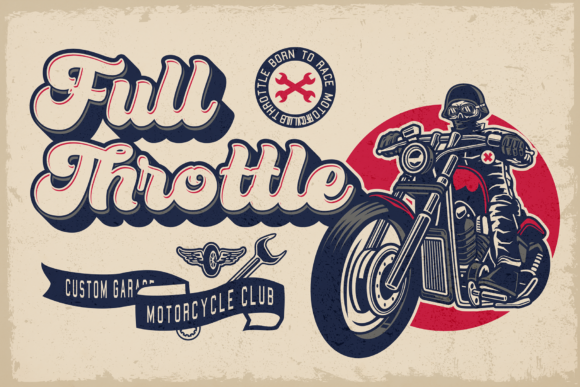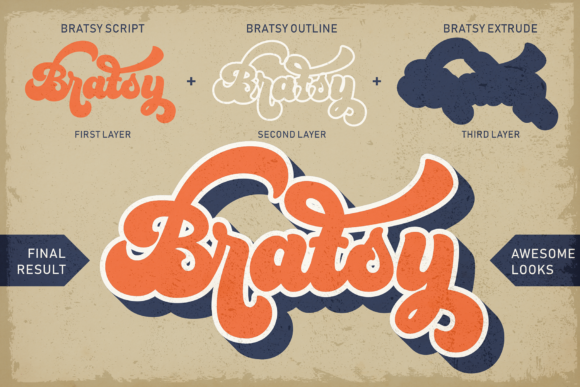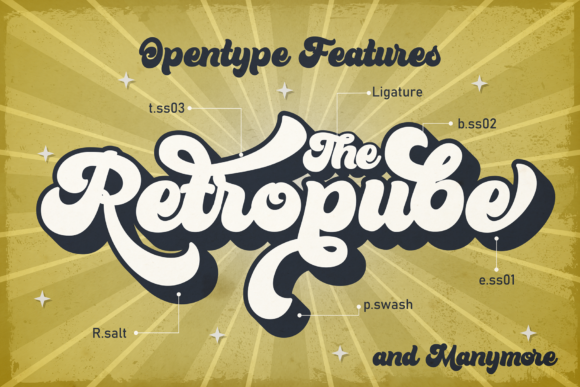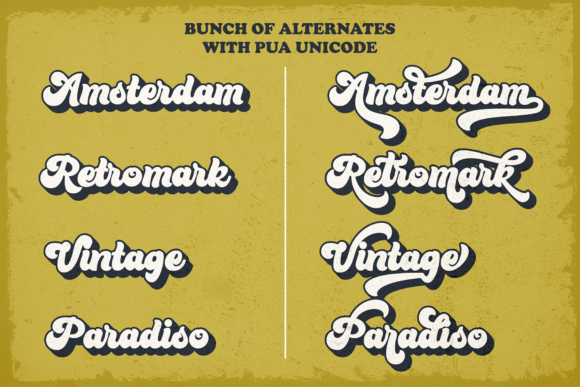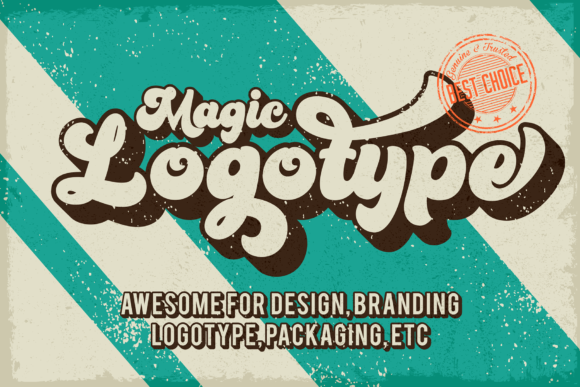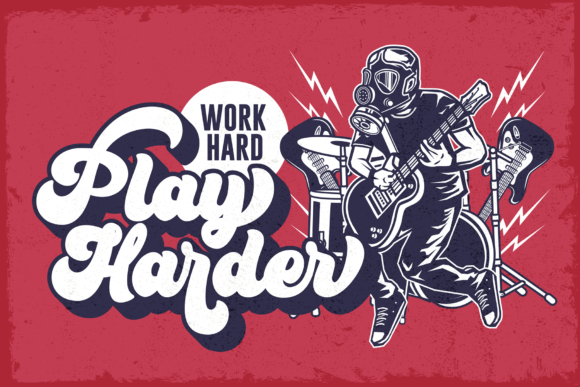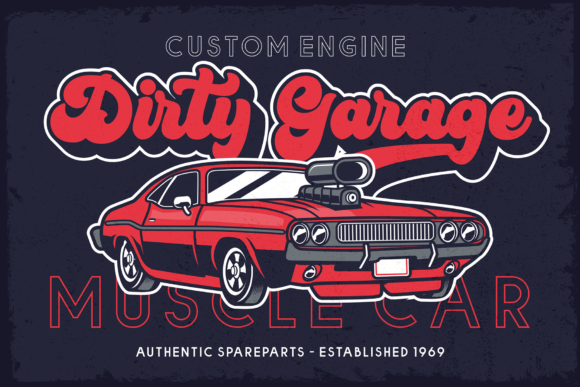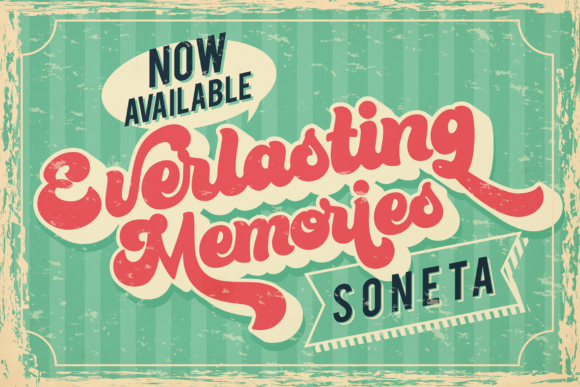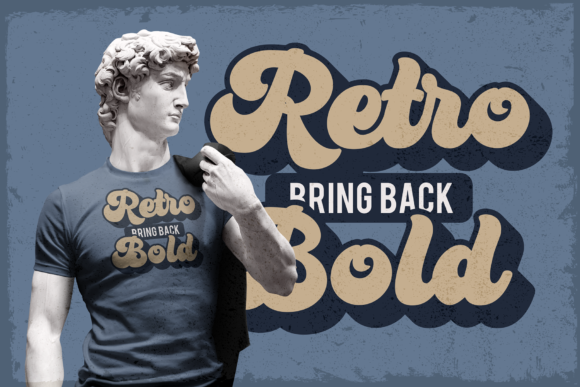
HomeScript FontsBratsy Font Script Fonts Bratsy Font FacebookXPinterestWhatsApp Bratsy Font Poster 2 Bratsy Font Poster 3 Bratsy Font Poster 4 Bratsy Font Poster 5 Bratsy Font Poster 6 Bratsy Font Poster 7 Bratsy Font Poster 8 Bratsy Font Poster 9 Bratsy Font Poster 10 About Bratsy Font Bratsy is a layered retro script with a vintage feel. Get nostalgic with this unique typeface! DOWNLOAD ON CREATIVE FABRICAThis font is sold and delivered by Creative Fabrica. Font Canyon may earn a commission if you buy through this link. People also explored Sashmitha Whitmore Font Happy Holiday Font Spring Font Dreaming Font Canilla Font Brushella Font Spring Girls Font Veggie Doodle Font Kitchenbats 315 0 TagsBratsy Font Previous articleFadeline FontNext articleOrleons Font LEAVE A REPLY Cancel reply Comment: Please enter your comment! Name:* Please enter your name here Email:* You have entered an incorrect email address! Please enter your email address here Website: Save my name, email, and website in this browser for the next time I comment. Personal Use Free Clumed Personal Use Free Read more about this font Monogram Veg Personal Use Free Read more about this font Abuget Free Script Personal Use Free Read more about this font 5cent Free Graffiti Personal Use Free Read more about this font BLOG Best Fonts for YouTube Videos: Make Your Thumbnails Stand Out Best Fonts for YouTube Videos: Make Your Thumbnails Stand Out Choosing the right font can make a massive difference in how your YouTube videos perform.... Top 7 Google Fonts Alternatives for Faster and Privacy-Friendly Web Design (2025) Transform Your Website: Elevate Your Typography with 7 Best Web Font Generators How to Cut Any Font on Cricut: Convert a Font to SVG (Free)